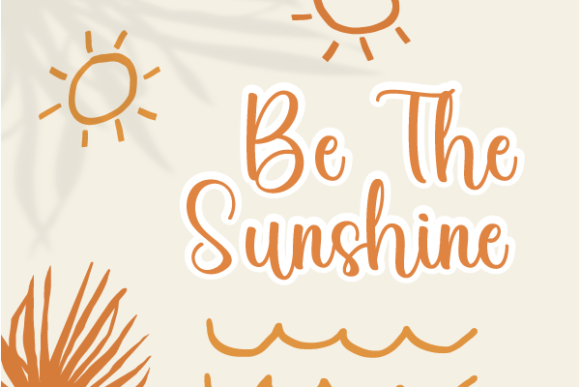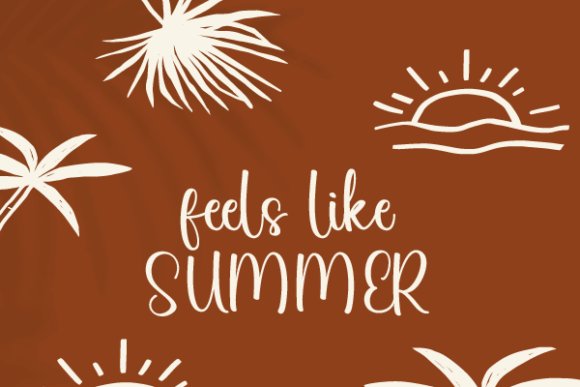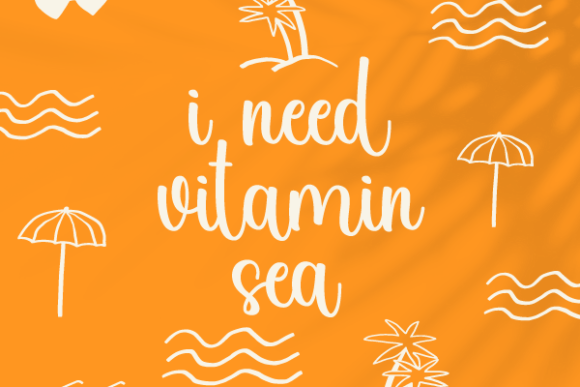
Cosmic Money Font
About Cosmic Money Font
“Cosmic Money” is a charming script font that exudes playfulness, featuring lovely characters that seem to dance along the baseline. This font is a delightful addition to your creative projects, making them stand out with a touch of charm and whimsy.
The playful nature of “Cosmic Money” is evident in its lively and dynamic characters. The font’s design adds a sense of movement and character to your text, making it suitable for various creative applications. Whether used for product packaging, branding, or other design projects, “Cosmic Money” brings a unique and engaging quality.
As you incorporate “Cosmic Money” into your designs, you’ll notice how it injects a playful spirit, making your creative ideas come to life with a distinct flair. The characters seem to dance along the baseline, creating a visual rhythm that adds energy and charm to your text.
Whether you’re working on posters, social media graphics, or any other project that requires a touch of playfulness, “Cosmic Money” is a font that stands out. Its ability to bring a lively and dynamic quality to your text makes it a valuable asset in creating visually appealing and engaging designs.
In summary, “Cosmic Money” is more than just a font; it’s a lovely script typeface that infuses your creative ideas with charm and playfulness. Whether used for branding or other design projects, let “Cosmic Money” be the font that adds a delightful and whimsical touch, making each project stand out with its unique character and visual appeal.